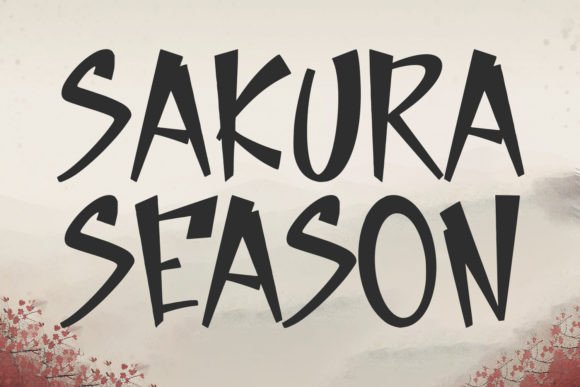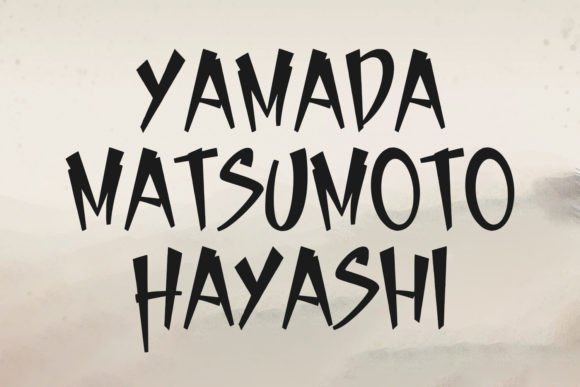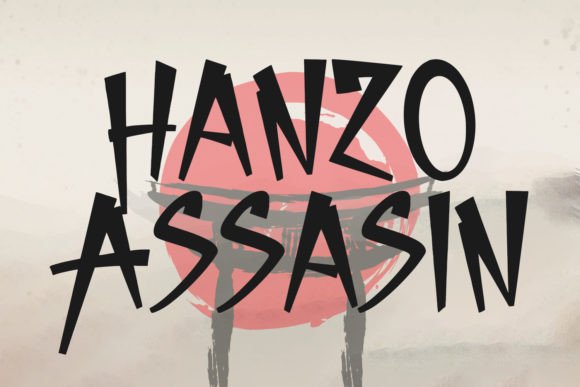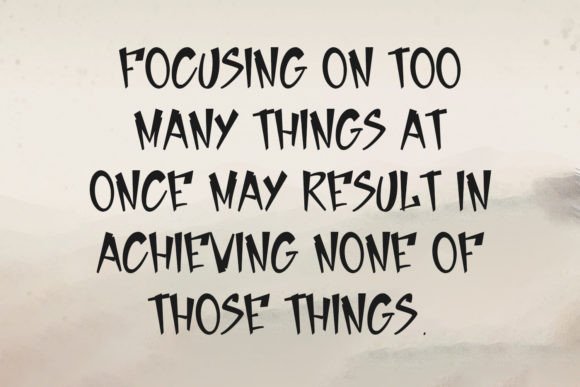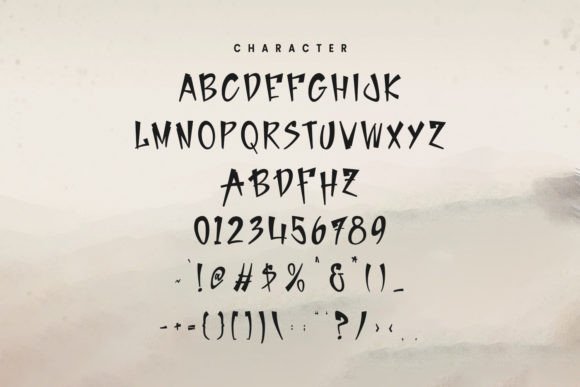
The Art of Japanese Brushwork: Introducing Fushijin Font
Have you ever sat down with a blank canvas, a cup of steaming hot coffee, and a brush in hand, waiting for the perfect stroke to flow onto the paper? It’s a moment of pure creativity, where time stands still and all that matters is the art unfolding before your eyes. This is the essence of Japanese brushwork, a technique that has inspired countless artists and designers for centuries.
For designers looking to add a touch of Japanese culture to their designs, Fushijin Font is the perfect tool. This beautiful brush font mimics the natural flow of traditional Japanese brushwork, with thick and thin strokes that give it an authentic, artistic feel. Whether you’re creating posters, invitations, or logos, Fushijin Font is a valuable addition to any designer’s toolkit.
With Fushijin Font, you can add a unique and distinctive touch to your designs, transporting your audience to the serene landscapes and tranquil gardens of Japan. Its versatility and beauty make it an essential font for any designer looking to push the boundaries of creativity and culture.
Fushijin Font Key Features
- Font Family: Fushijin Font is a Japanese font family designed for various purposes, including signage, wayfinding, and branding.
- Unique Characteristics: Fushijin Font features a unique blend of traditional Japanese typography and modern design elements, making it an ideal choice for brands looking to create a distinctive visual identity.
- Language Support: Supports the Japanese language, with comprehensive coverage of kanji, hiragana, and katakana characters.
- Style Options: Available in multiple styles, including regular, bold, italic, and bold italic, to provide versatility in design applications.
Fushijin Font Review
I recently had the chance to work with the Fushijin font, and I must say it’s an interesting addition to any design project. ✨ One of the things I appreciate about this font is its unique and elegant style, making it perfect for creating a sophisticated and modern look. The font’s Japanese roots are evident in its intricate details and subtle nuances, which can add a touch of cultural authenticity to your design.
Another thing that works well with the Fushijin font is its versatility. ✨ It comes in a range of weights and styles, allowing you to choose the perfect combination to suit your project’s needs. From headings to body text, this font is sure to provide a consistent and polished look.
However, there are a few limitations to consider. ⚠️ For one, the font’s complexity can make it challenging to read, especially at smaller font sizes. Additionally, the font’s unique style may not be suitable for all projects, particularly those that require a more straightforward or minimalist approach.
Key Points
- Unique and elegant style
- Versatile and comes in a range of weights and styles
- May be challenging to read at smaller font sizes
- Not suitable for all project types
The Fushijin font is a great choice for designers who want to add a touch of sophistication and cultural authenticity to their projects. While it may have some limitations, its unique style and versatility make it a valuable addition to any design toolkit.
Some tips for getting the most out of Fushijin font include:
– Using it for titles and headings to add a touch of elegance and sophistication.
– Pairing it with bold or sans-serif fonts for a modern and contrasting look.
– Using it for decorative text or quotes to add a touch of whimsy and personality.